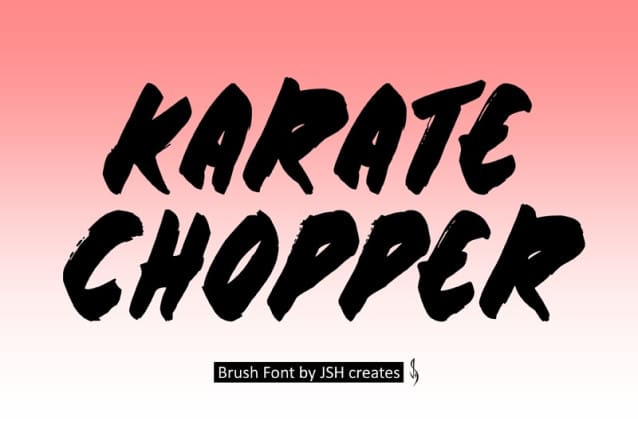
Karate Chopper Font
Karate Chopper Font, cool handwritten brush font. Perfect for advertising and display purposes, including banners, book covers, shirts, posters, logos and much more!